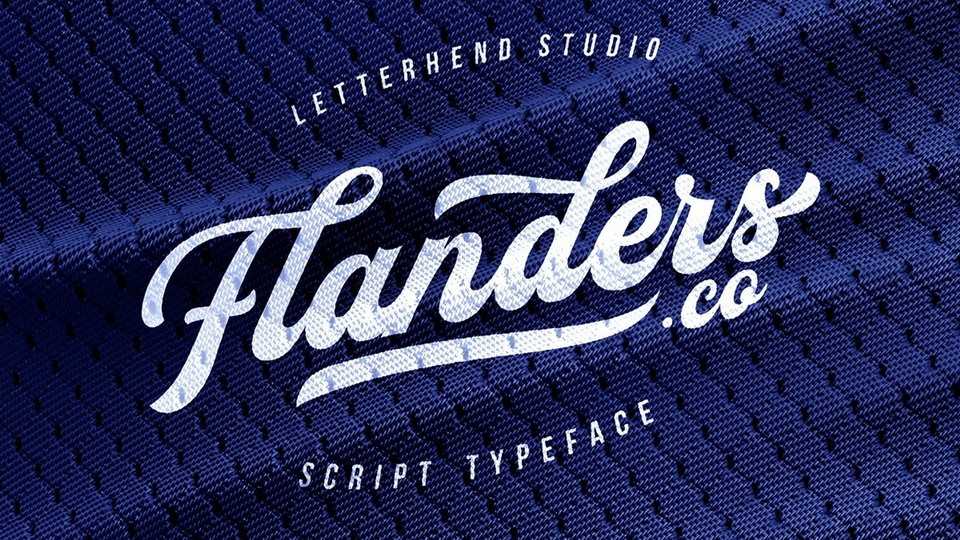
Download Flanders font, a bold and modern script typeface with a retro look that will fulfill your design needs for sporty themes, logotypes and much more.